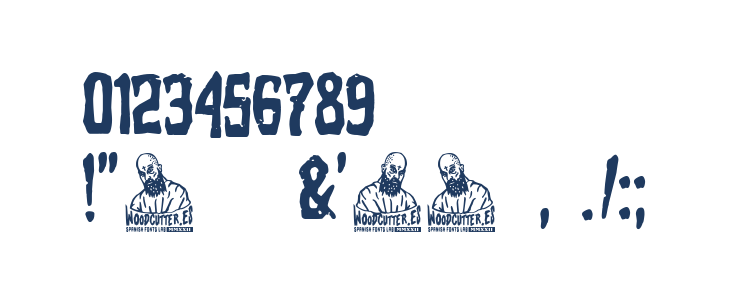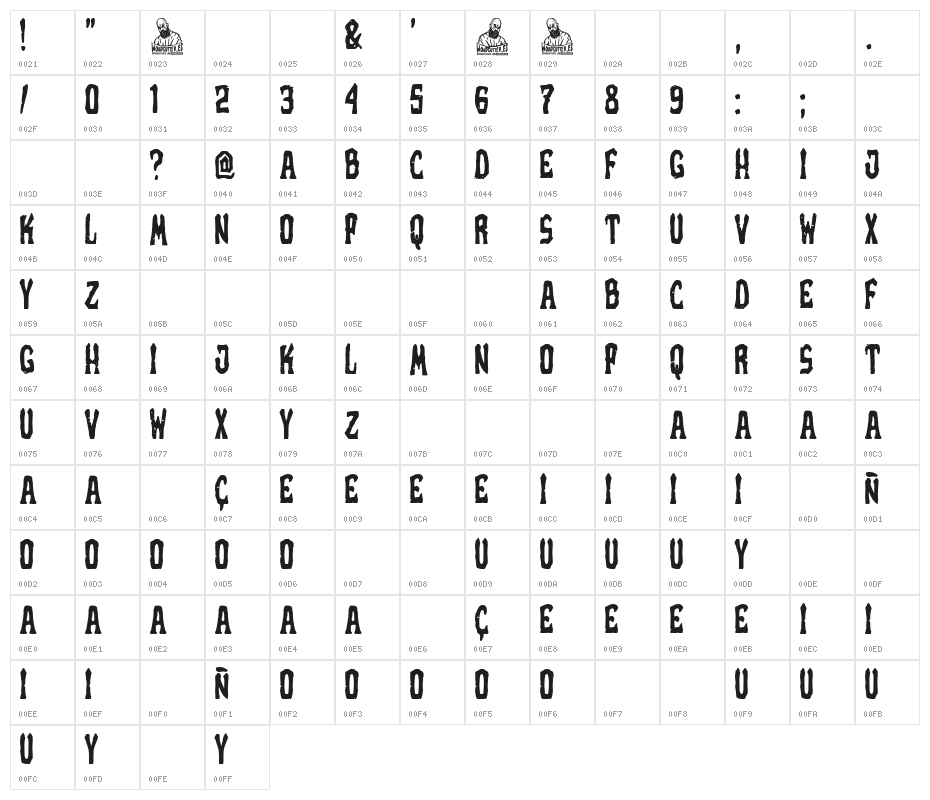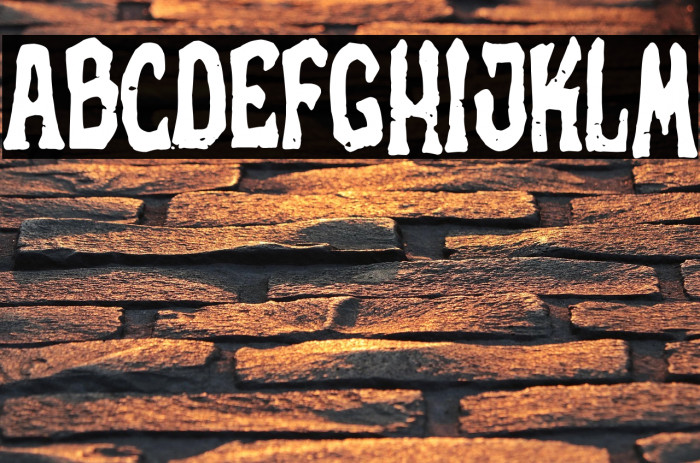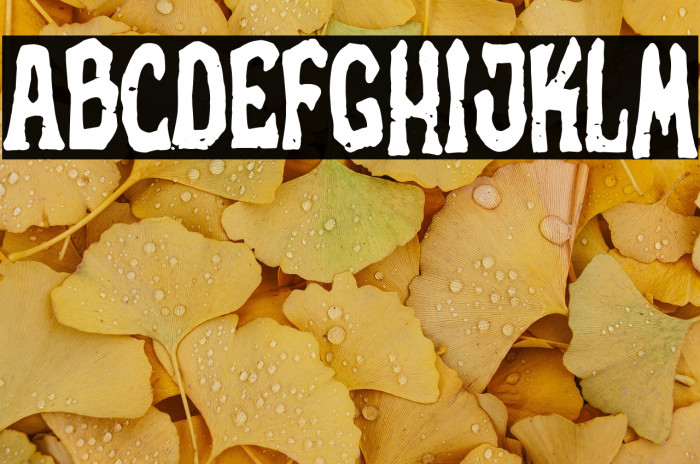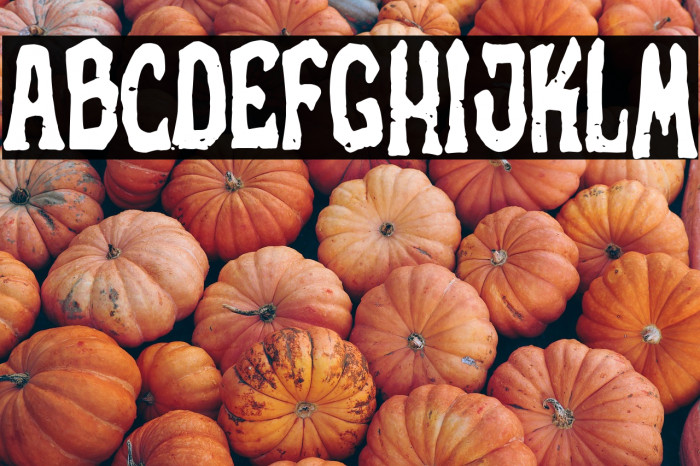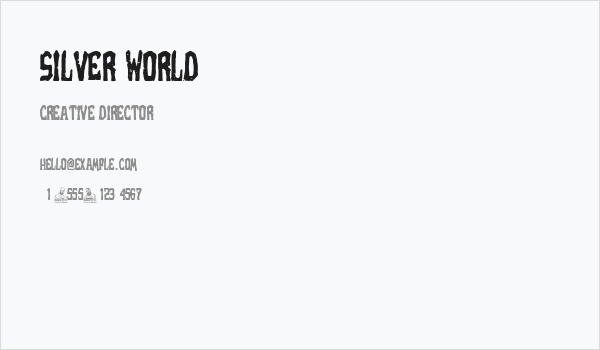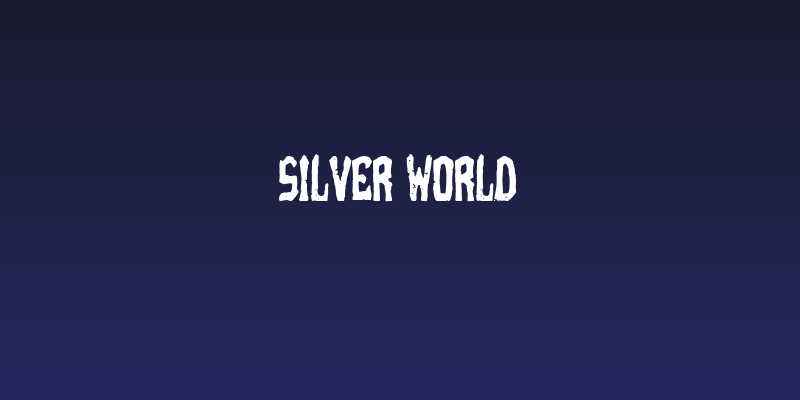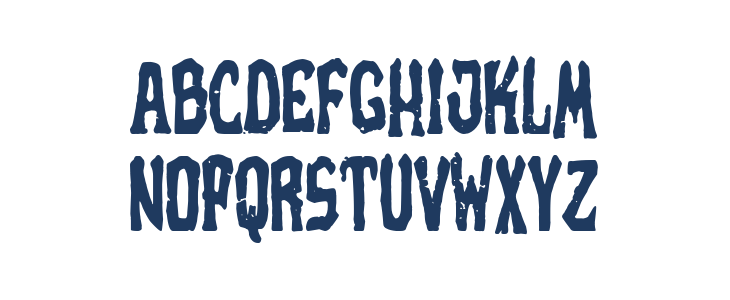
Silver World Font
Silver World Description
This font features a rugged and distressed style, reminiscent of hand-carved wood or rough brush strokes. The characters have an uneven, organic appearance with irregular edges, giving them a bold and dynamic presence. The uppercase and lowercase letters maintain a consistent height, while the numerals and special characters follow the same textured aesthetic. This font's unique, handcrafted look makes it stand out, offering a sense of authenticity and raw energy.
| Proposed Projects | Ideal for projects requiring a rustic or vintage feel, such as posters, album covers, or branding for artisanal products. |